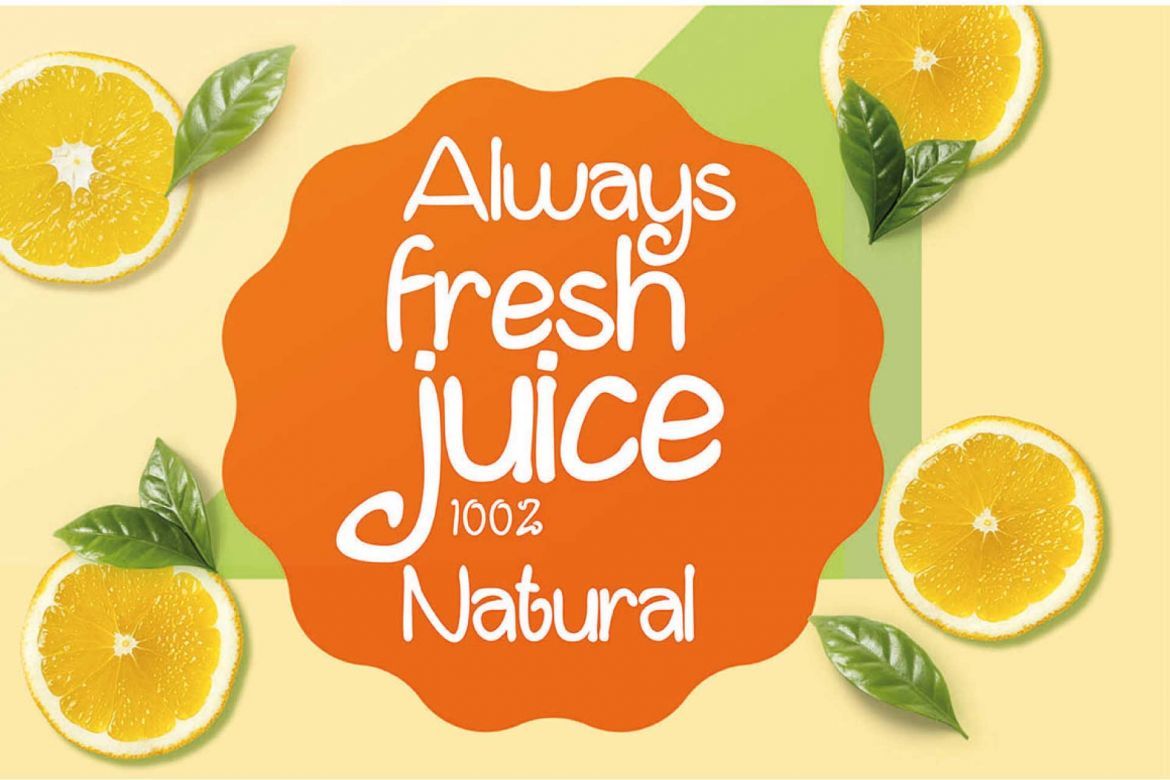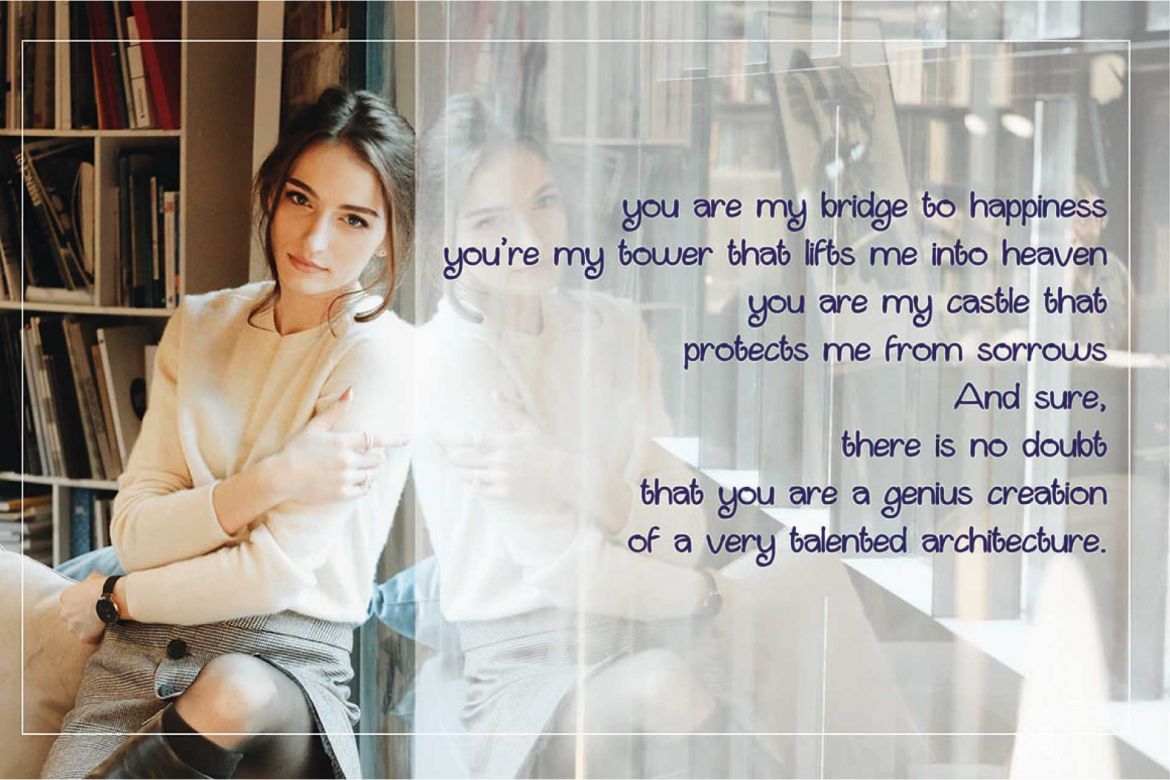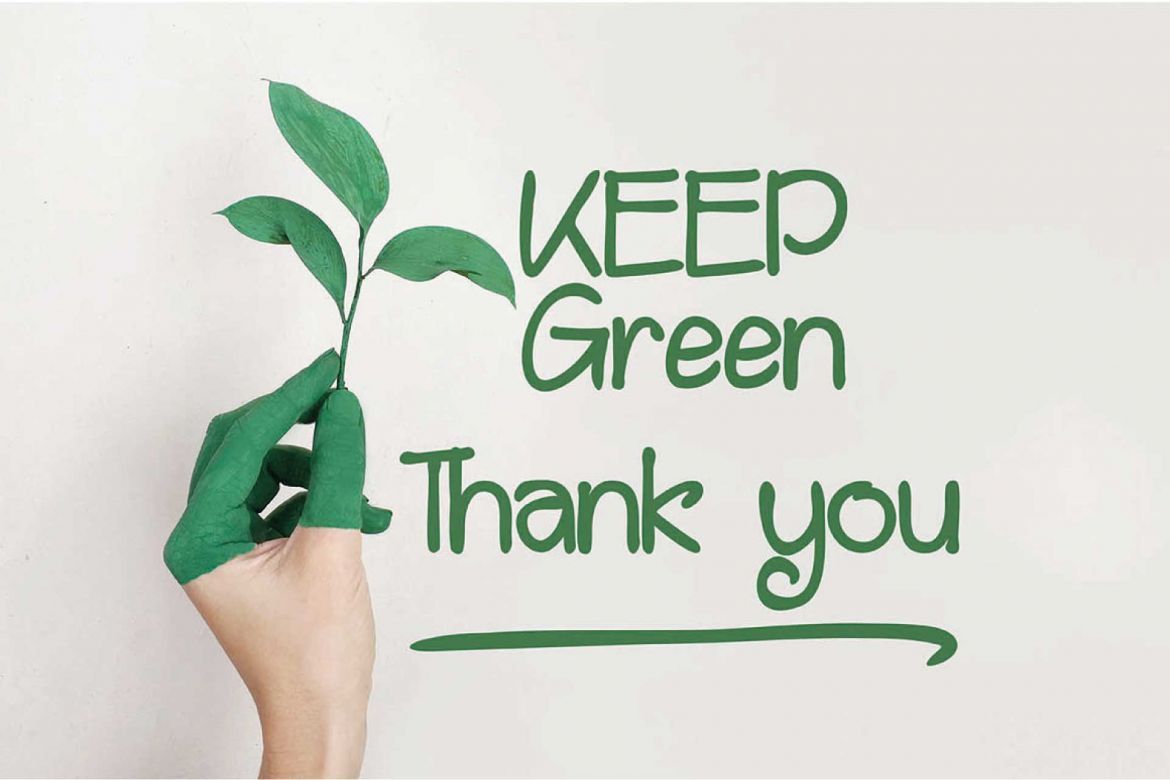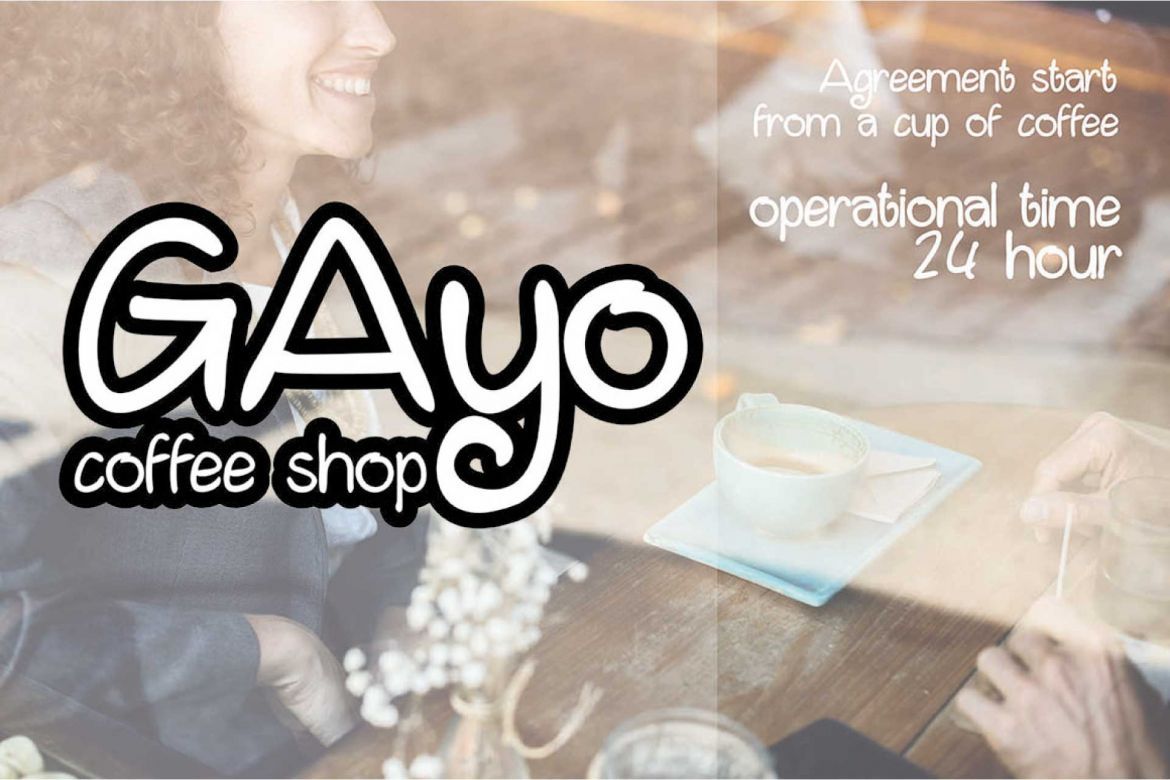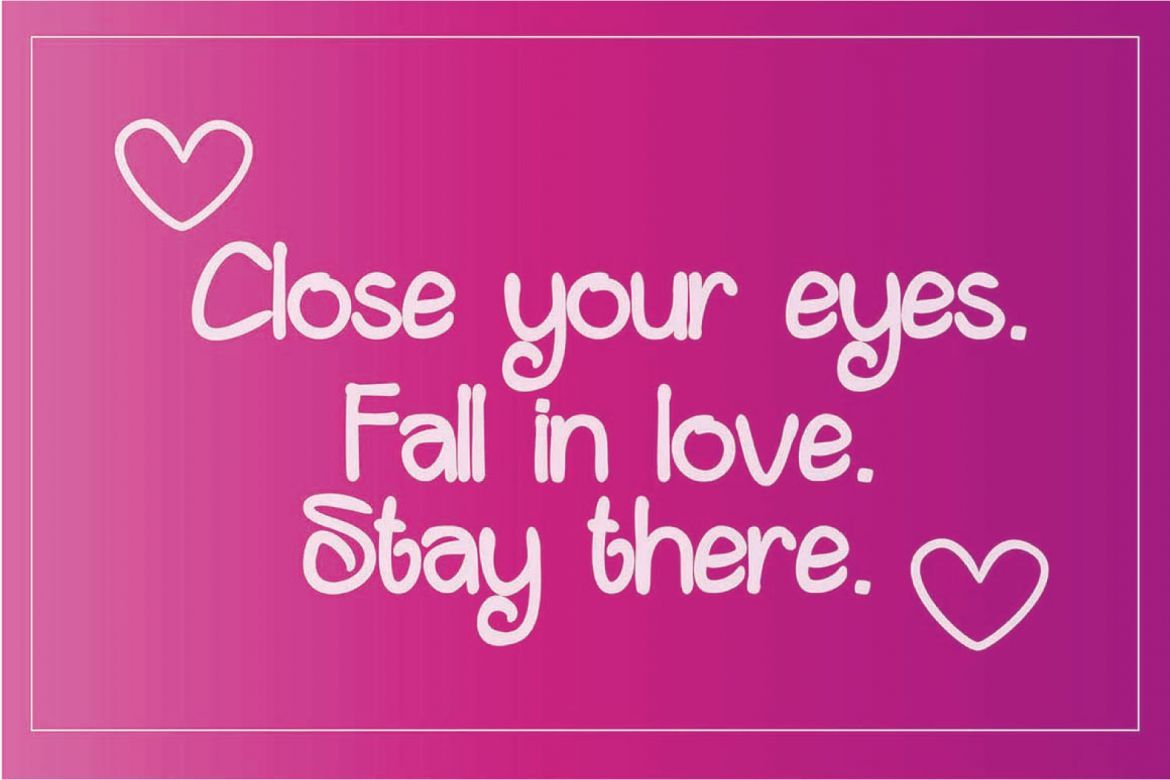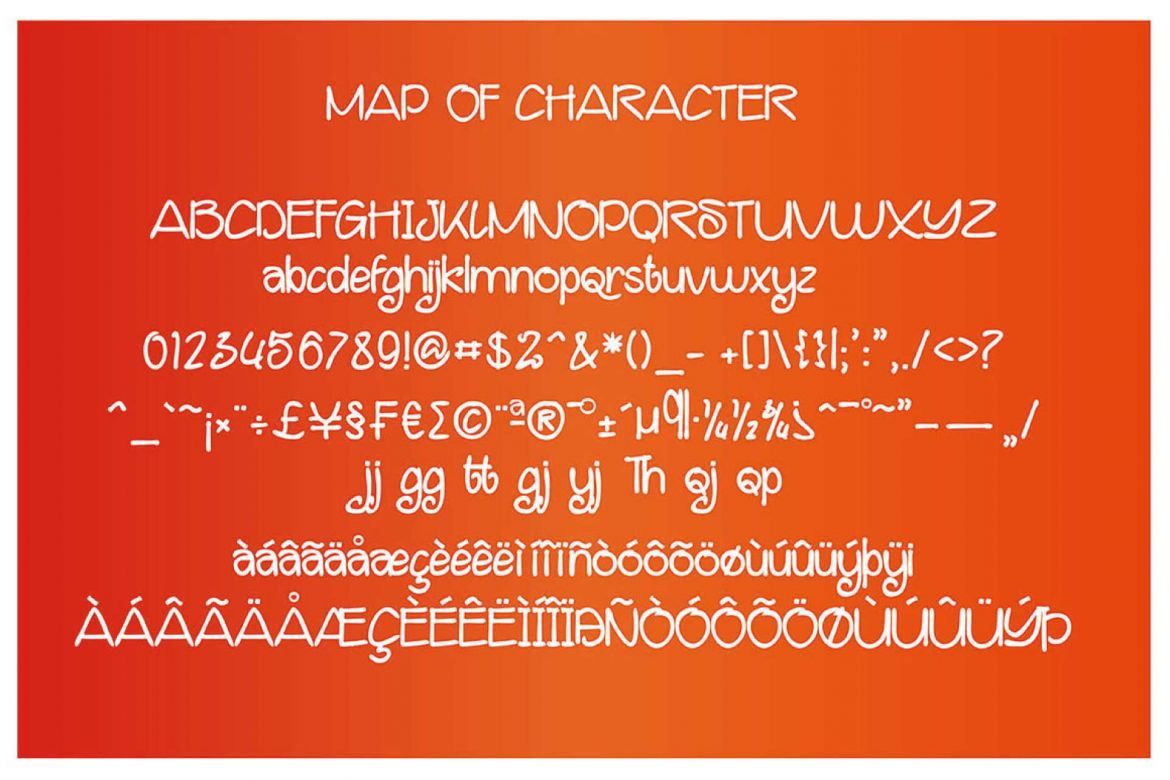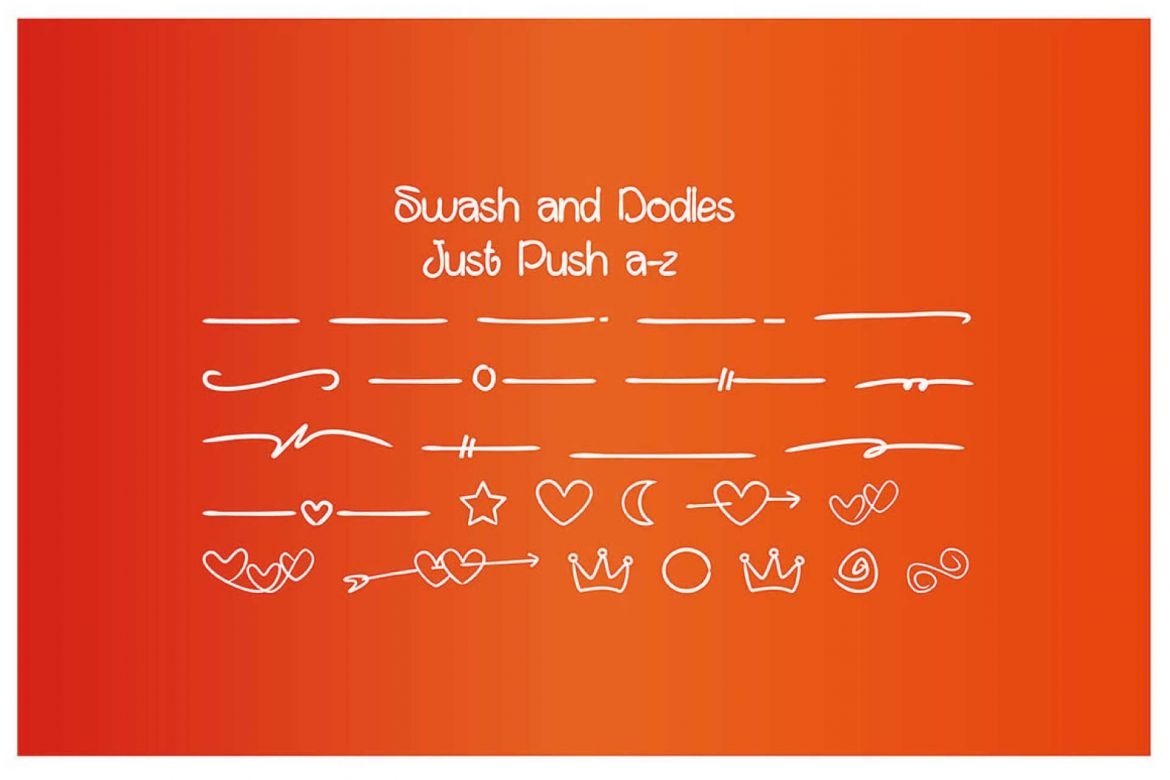
Strawberry Night Font
Introducing Strawberry Night Font. This is a hand-drawn font, its look strong, simple and cute, so you can use it for your variety style. It's looking strong and simple for elegant design, you can use it for the brand logo. Its looking simple when you use it for quote text (long text), ideal for expressing fun and a relaxed vibe in your design. And It's looking cute when you use it for girly and kid drawings style.
So... “ Strawbery Night" it is. Representative for fun, simple, cute, simple, elegant and natural touch. This font is extensively edited for super-smooth lines and curves, so it'll cut easily your Cricut or Silhouette machine. Though it's also super cute for print projects, logos, branding, or anything else you want to use it for! It has a funky mix of letter sizes and heights, and it'll still look great.
Strawberry Night includes uppercase, lowercase, numerals & punctuation, standard ligature and multilanguage support. For more fun... The strawberry Night came with doodle and swash. Its make your design more thematic as they represent